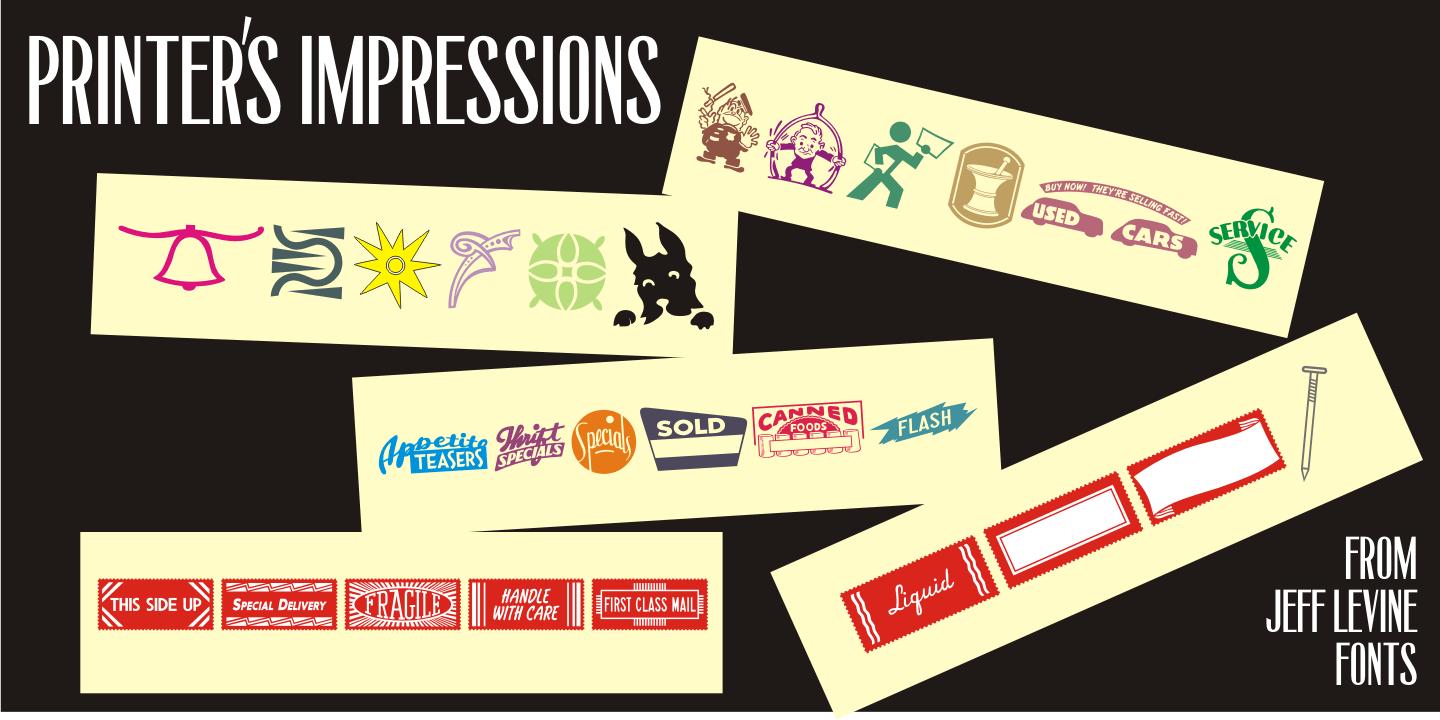
Printers Impressions
Printers Impressions JNL is an assortment of various letterpress ornaments, corner pieces, catch words and other designs, along with some shipping labels with perforated edges; all re-drawn from vintage source material.
For the shipping labels, print them in red and you will recreate the standard form of gummed label so popular for years before self-adhesives took over the market.